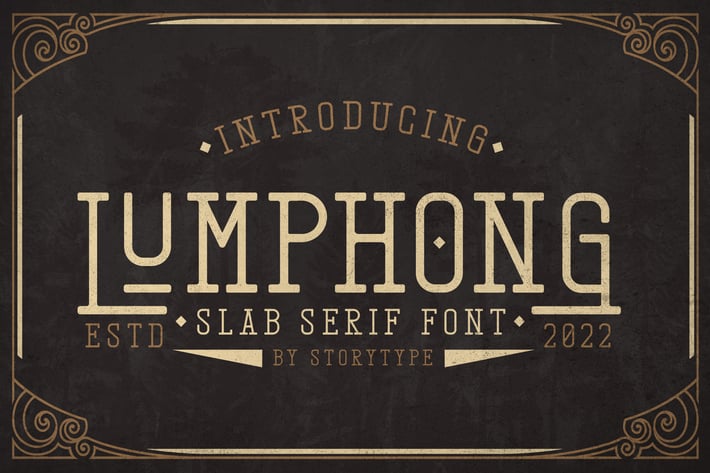
Lumphong Slab Serif Font
Lumphong is a bold vintage slab serif font inspired by classic signage and old-world typography. With its sturdy letterforms, strong contrast, and timeless character, this font brings a powerful retro presence that feels both authoritative and elegant—perfect for designs that need heritage and confidence.
Strong slab serif style with vintage character
Bold, confident letterforms for high-impact headlines
Classic proportions inspired by old signage and print
High readability for display and branding use
Vintage & retro branding
Posters, signage, and editorial headlines
Logos with classic or heritage vibes
Packaging and label designs
Business branding with timeless appeal
Rooted in tradition, built to stand strong — a slab serif that never goes out of style.*